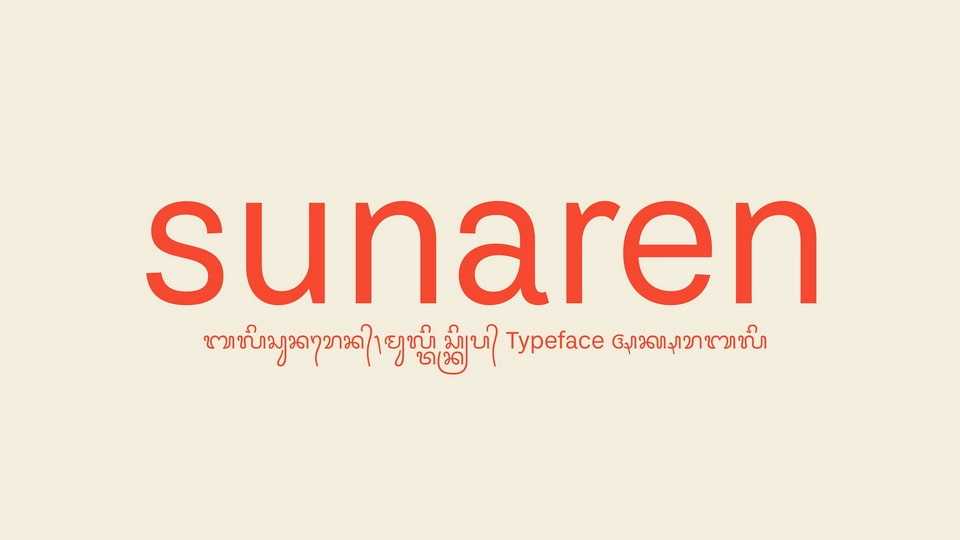
Download Bali Sunaren font, a multiscript typeface rooted from Balinese and Sasak Script and covering over 90+ Latin languages too. Crafted in a neo-grotesque style sans-serif, Bali Sunaren seamlessly blends Latin with Balinese script to bridge tradition and modernity.